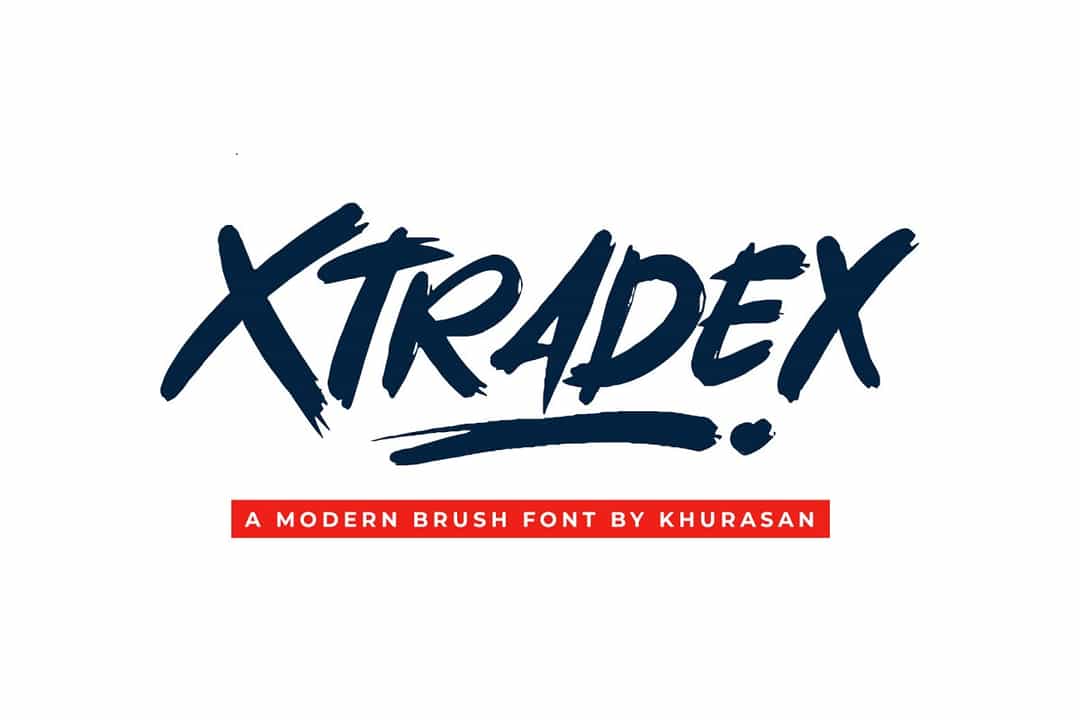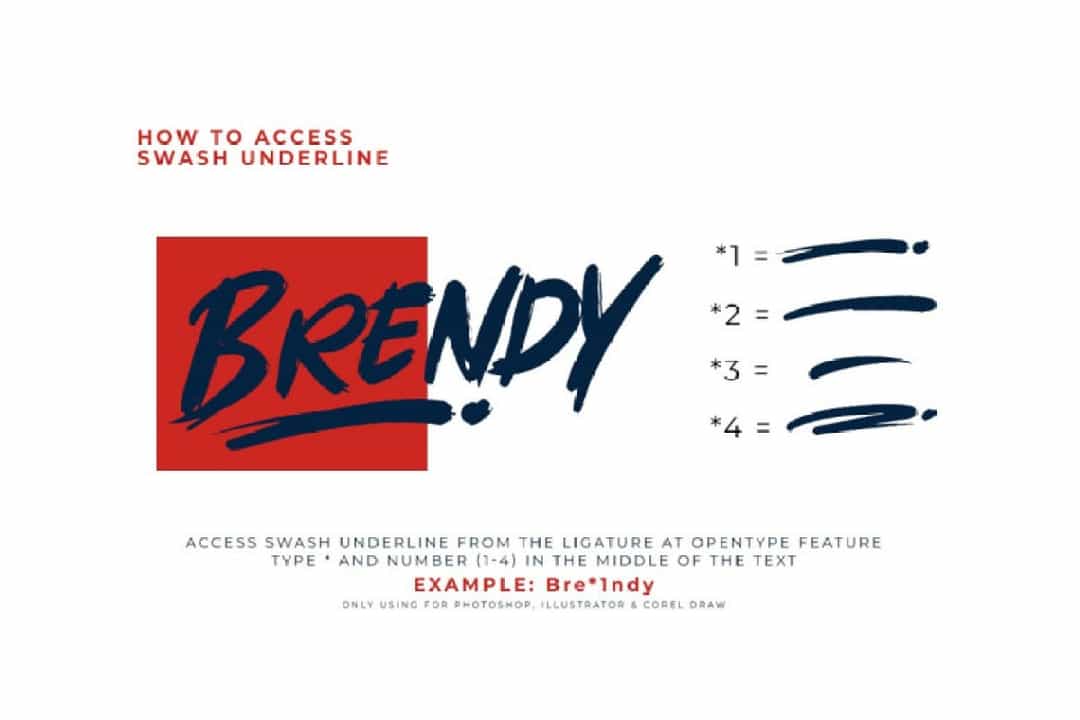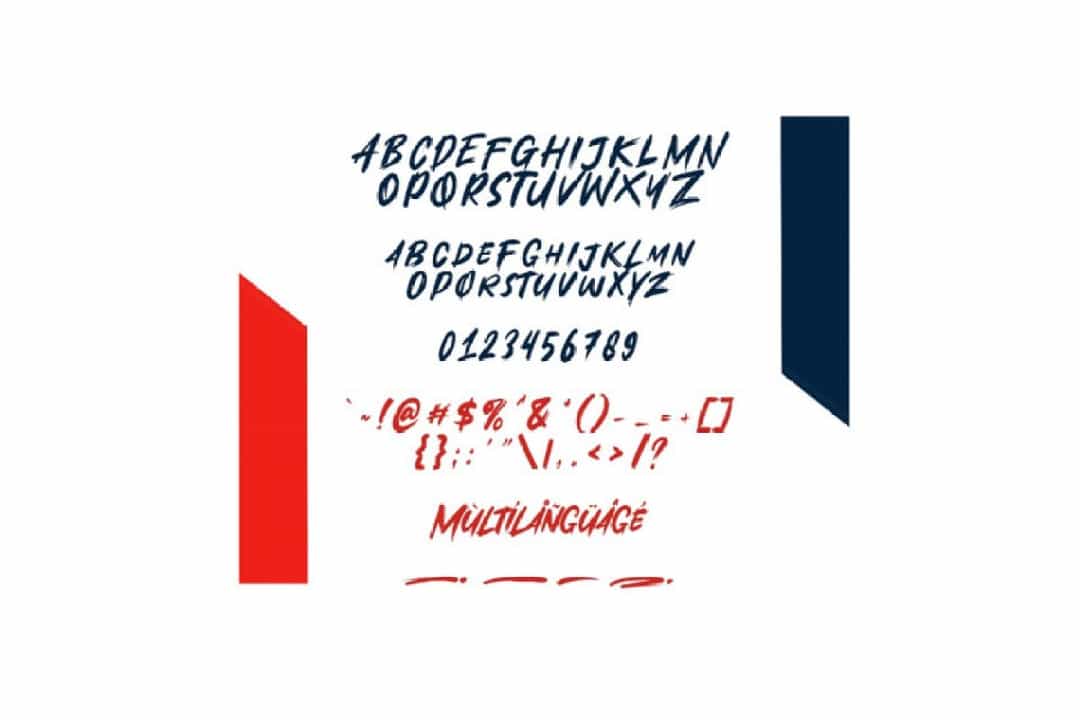
The Xtradex brush typeface is a modern, strong brush typeface perfect for logos, posters, magazine covers books banners and book covers. Utilize this unique display font in designing beautiful designs! Its versatility easily matches a range of projects – just include it in your creative concepts to see how they stand out!